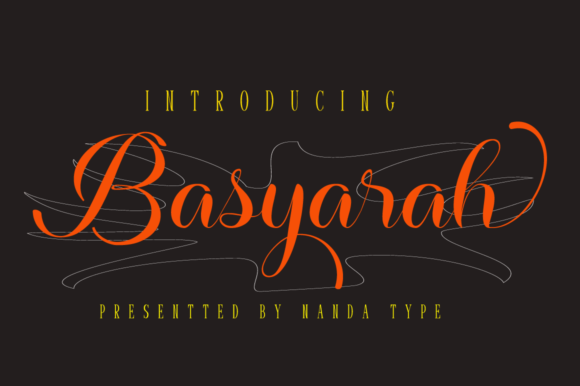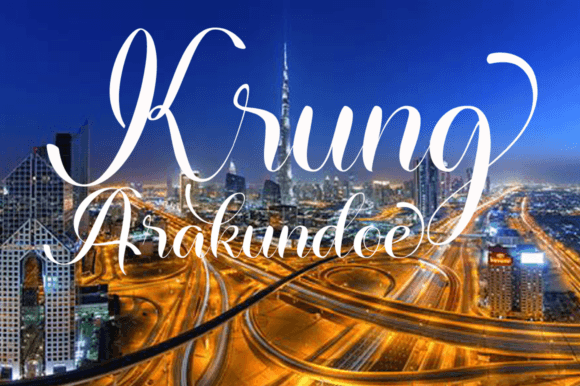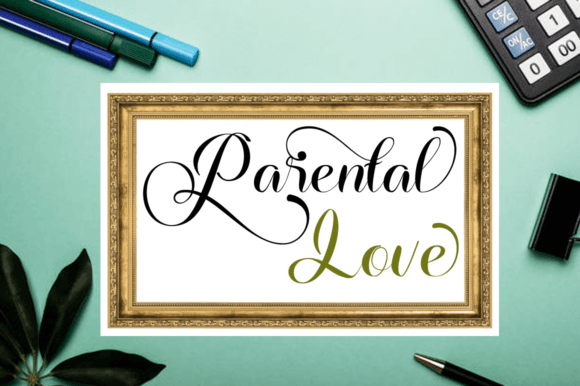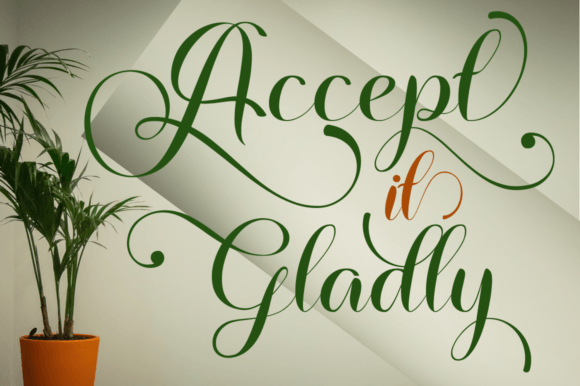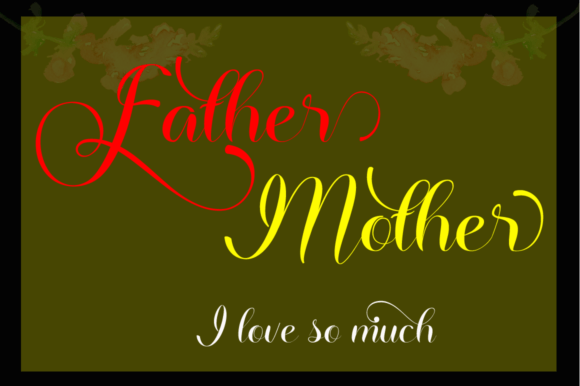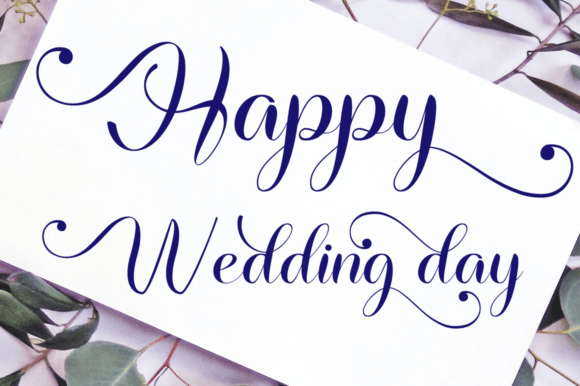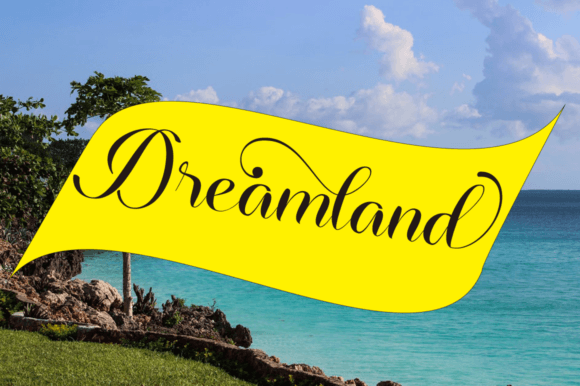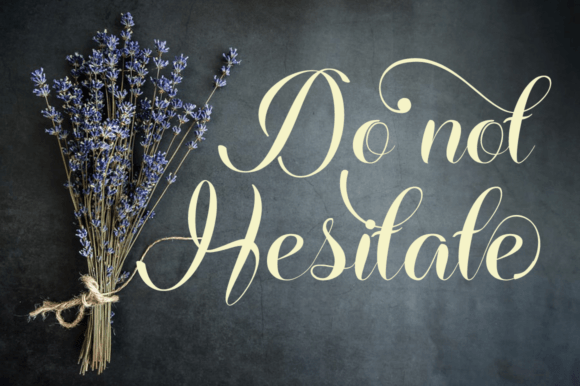
Basyarah Font
About Basyarah Font
“Basyarah” is a dazzling script font known for its meticulous craftsmanship and intricate details. This font exudes elegance and sophistication, making it a valuable asset for your font library. Its versatility allows it to enhance a wide range of creative projects, regardless of the topic or theme. “Basyarah” is PUA encoded, which means you can easily access all its glyphs and swashes, adding to its usability and flexibility.
The font’s dazzling and neatly crafted design is characterized by its attention to detail. Its beauty lies in its intricacy, making it a suitable choice for projects that require a touch of refinement and artistry. Whether you’re working on branding, invitations, logos, or any other design endeavor, “Basyarah” has the potential to elevate your creations.
In the world of design, fonts play a pivotal role in setting the tone and conveying a visual identity. “Basyarah” excels in these aspects by offering a script style that is both detailed and elegant. Its aesthetics infuse your designs with a sense of creativity and sophistication, making them engaging and memorable.
In summary, “Basyarah” is more than just a font; it’s a dazzling and detailed design tool that can enhance your creative projects with its refined and intricate style. Its PUA encoding ensures easy access to its wide range of glyphs and swashes, making it a versatile choice for designers seeking to create work that is both sophisticated and visually striking. Whether you’re an experienced designer or just starting your creative journey, “Basyarah” is the font that can help you craft designs that are truly remarkable and artistically compelling.